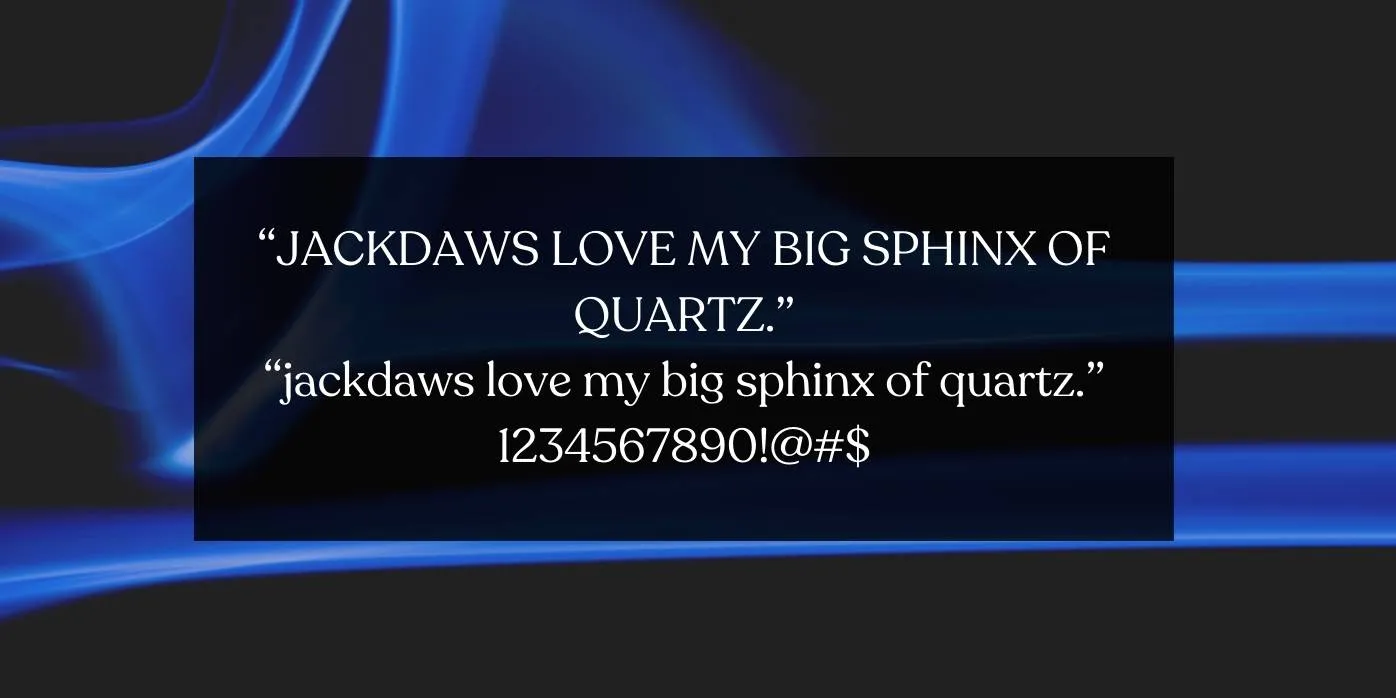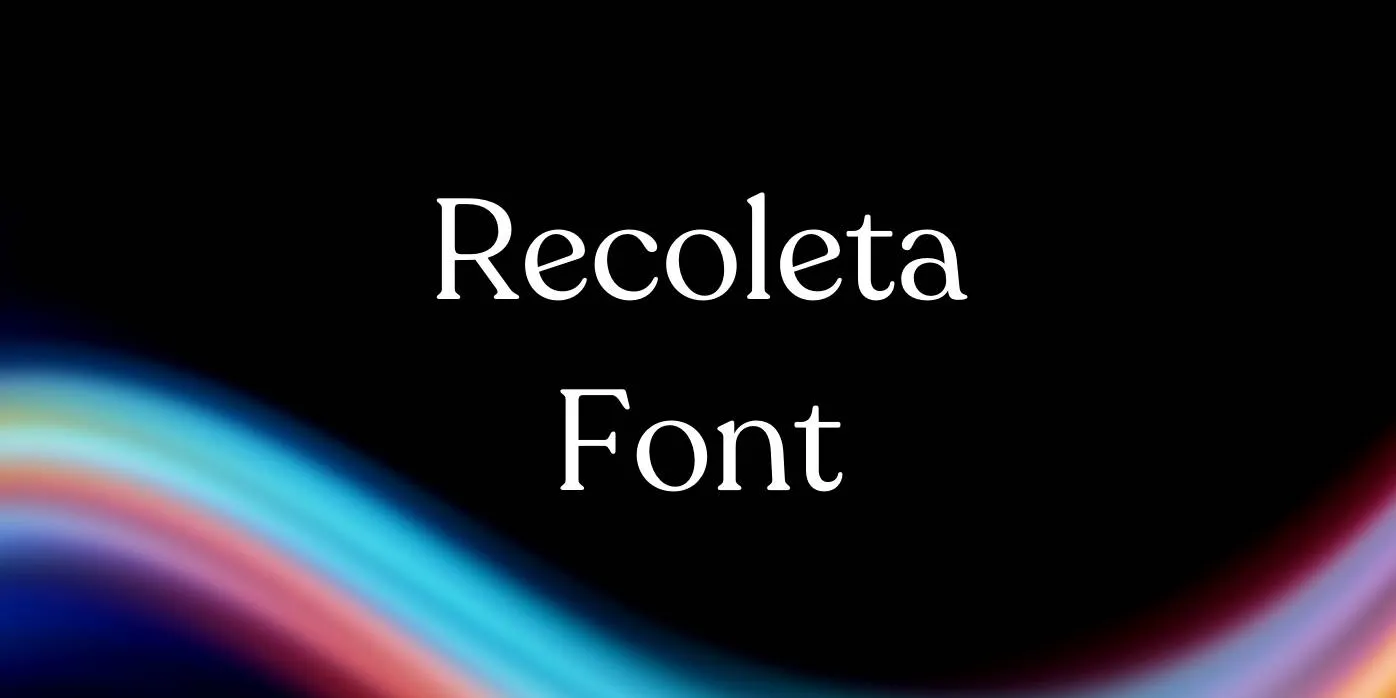
Recoleta Font
Recoleta Font was developed and shared by Latinotype. It belongs to the serif fonts. This stylish font has very distinctive features. The main characteristics of this font are its high readability, moderate thickness, and short descenders.
This makes it an excellent choice for body text in both print and digital media. You can also use kokila font which is closest to this font family. The Recoleta Typeface has a wide range of weights and styles, from light to bold, making it extremely versatile. This stunning font is available in regular, bold, medium, and italic versions, as well as a range of small caps styles.
It’s perfect for everything from corporate branding to personal blog posts. Thanks to its versatility, make it is classic for various designs.